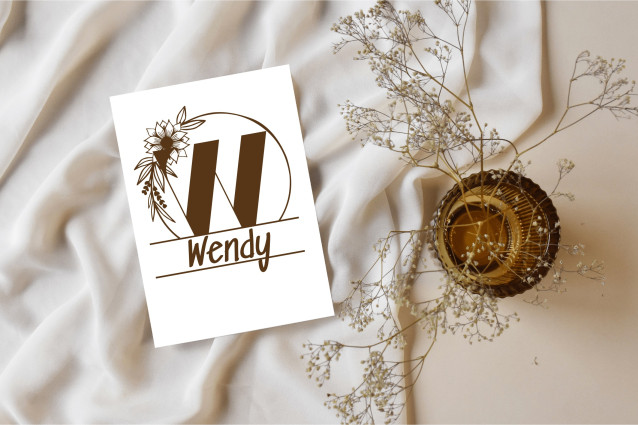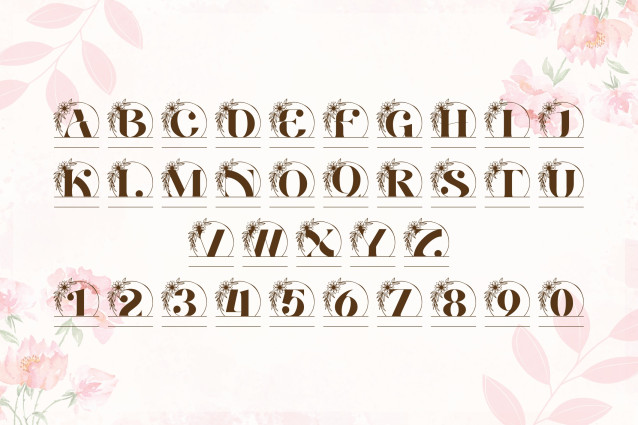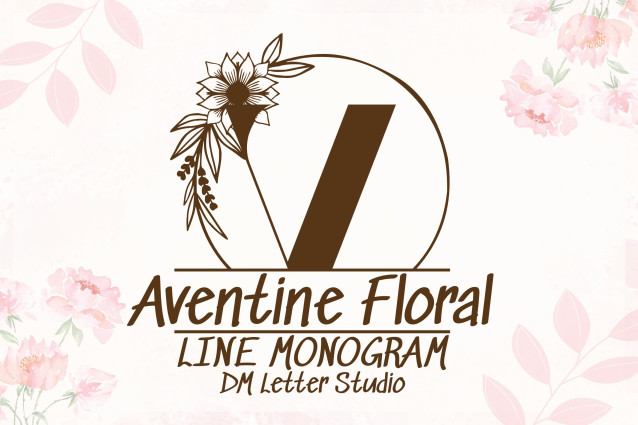
Aventine Floral Line Monogram Font
Aventine Floral Line Monogram is a refined decorative serif font that combines minimalist line art with graceful floral elements. Each uppercase letter is beautifully detailed with fine botanical illustrations, making it the perfect choice for modern monograms, wedding branding, luxury logos, and sophisticated stationery. This font brings together elegance, nature, and timeless design in perfect harmony.